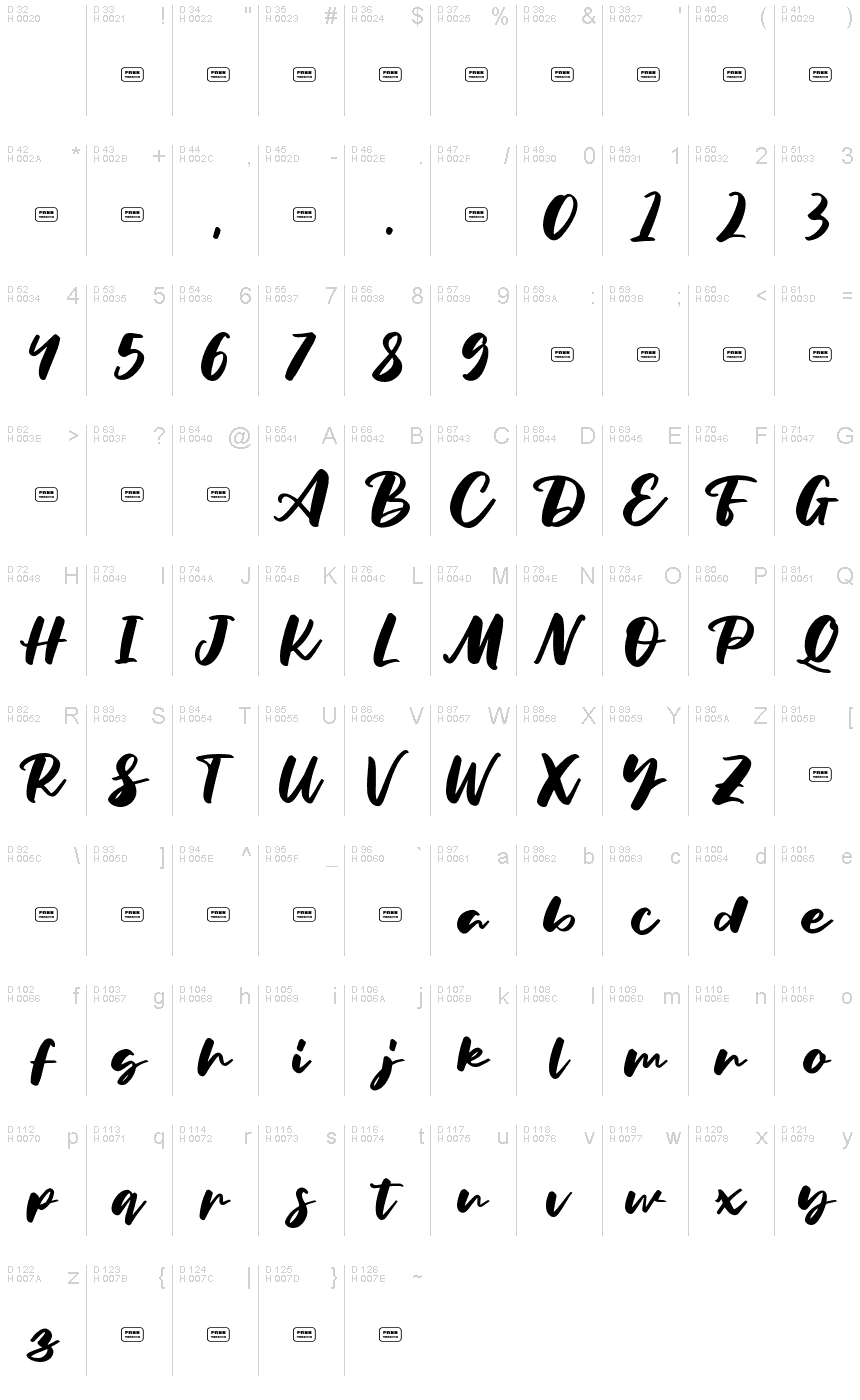
Rekan Free Trial
Rekan, a bold and semi-expanded brush font designed by Typefactoryco, is the perfect choice for a wide range of creative projects. Its unique style adds a touch of artistic flair to any design.
Whether you're creating a brand identity, designing eye-catching logos, crafting captivating titles for magazines, or working on lifestyle-inspired artwork, Rekan is sure to make a lasting impression. With its bold strokes and semi-expanded width, this font truly stands out and brings your ideas to life with elegance and impact.